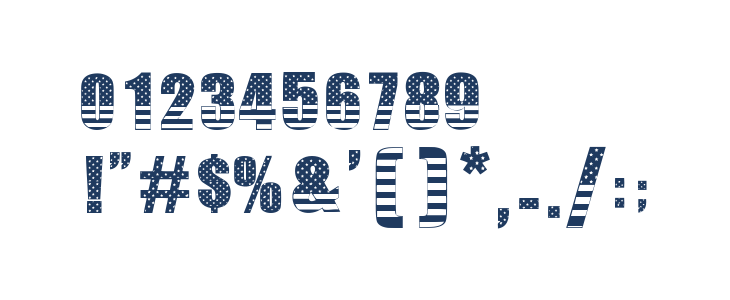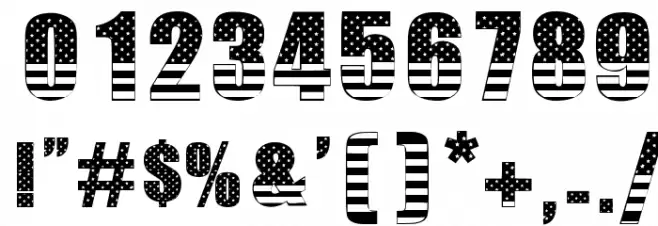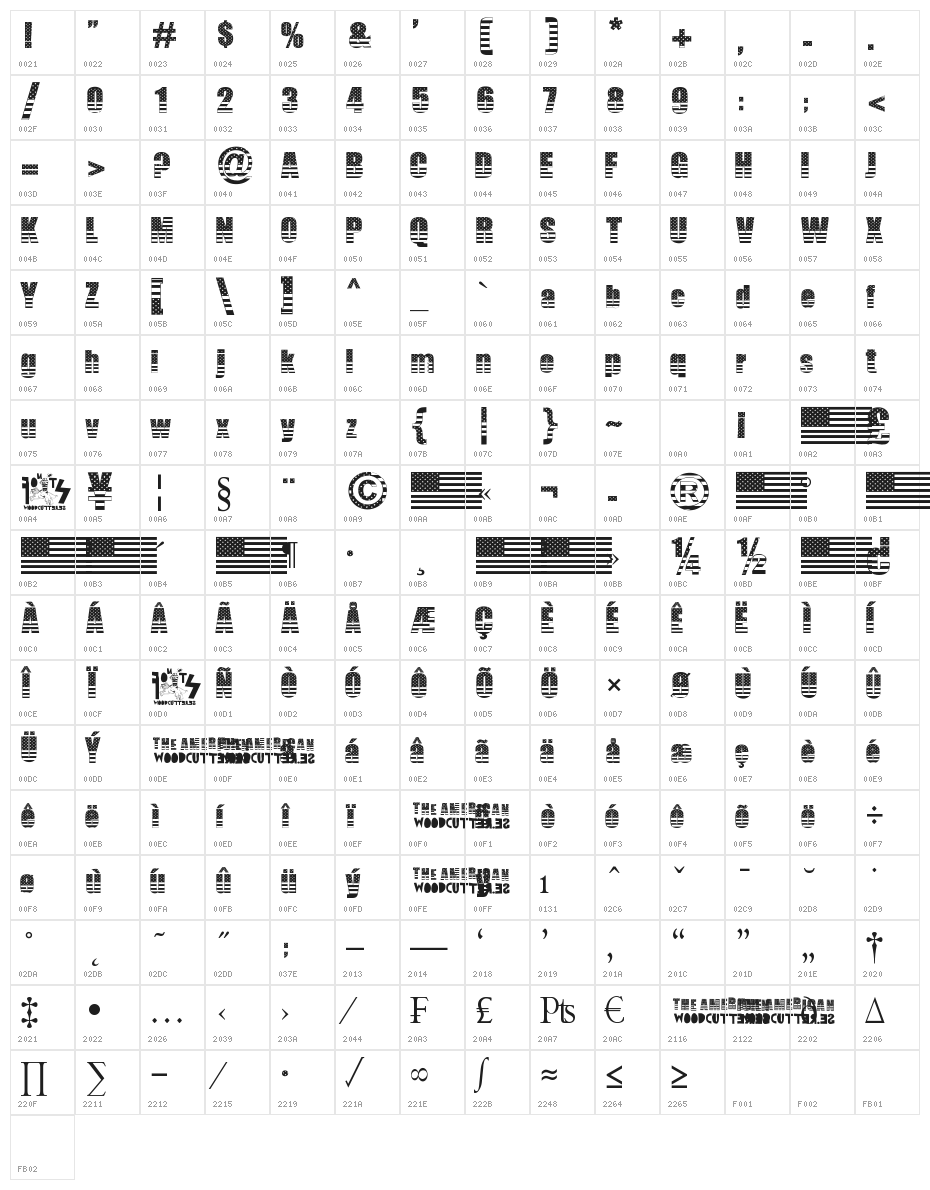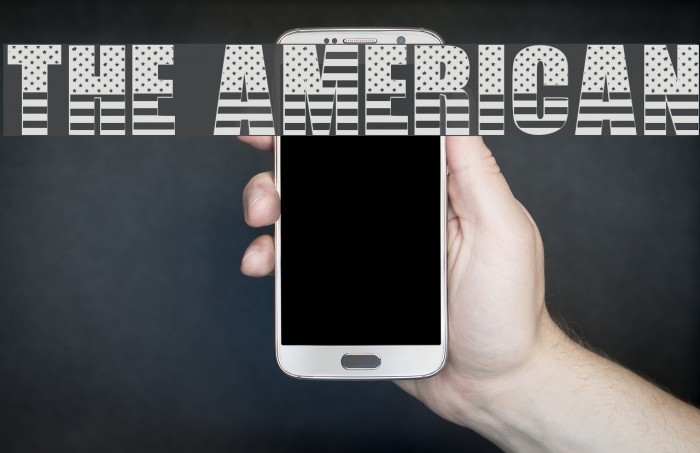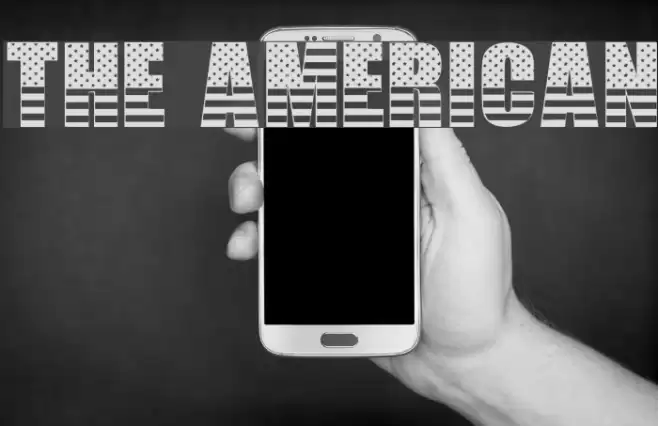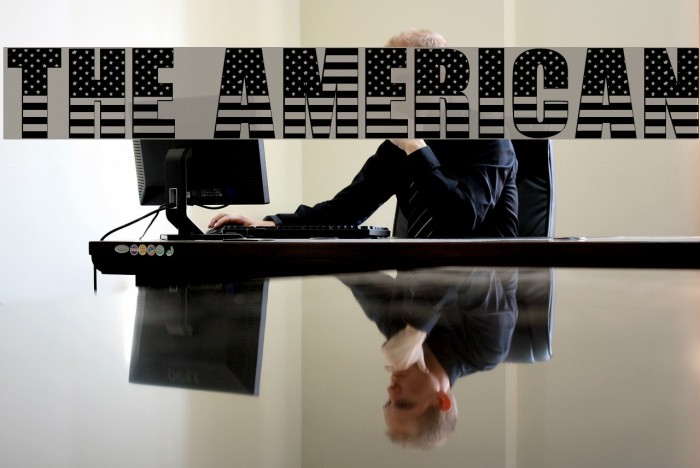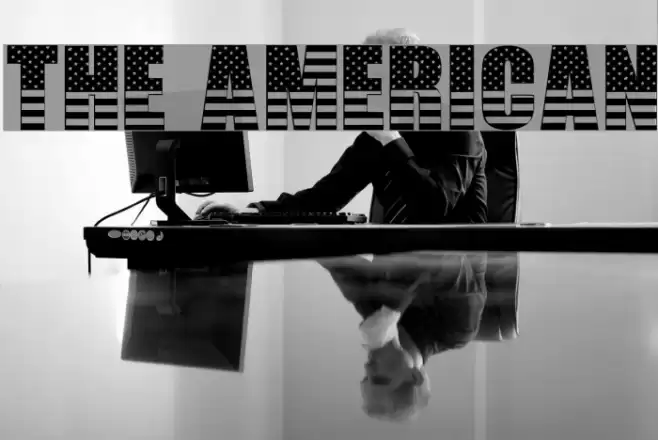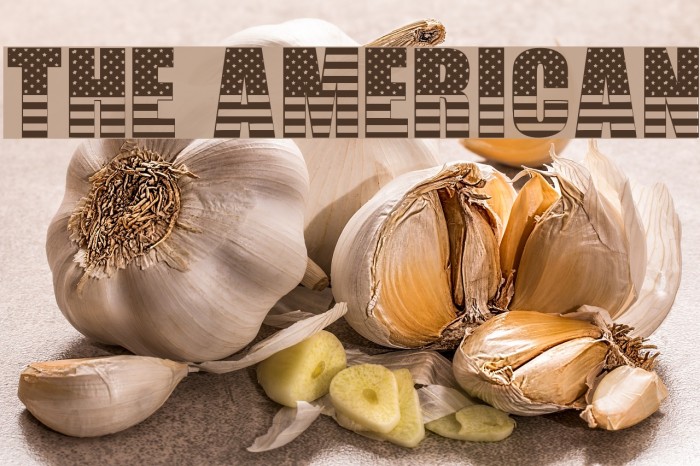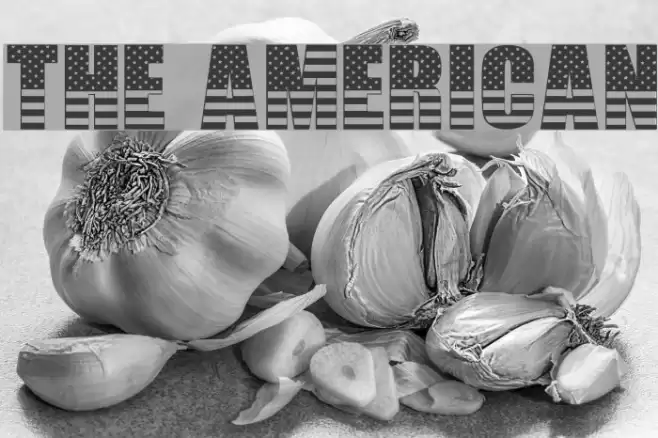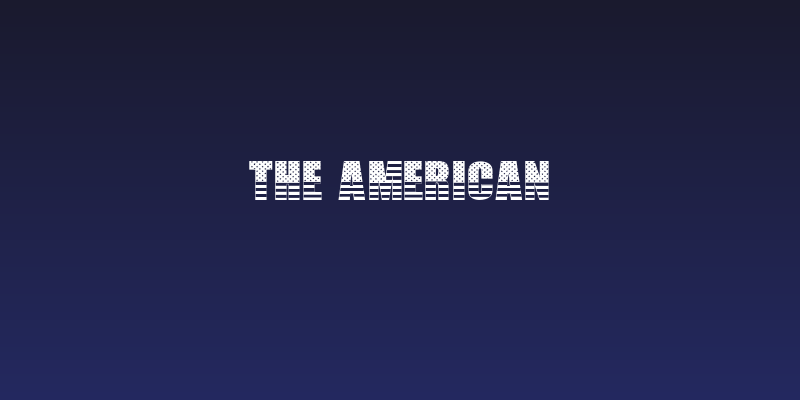
THE AMERICAN Font
THE AMERICAN Description
This font features a bold, decorative style with a unique pattern reminiscent of the American flag. Each character is filled with stars and stripes, creating a visually striking effect that captures attention. The uppercase and lowercase letters, as well as numbers and special characters, maintain this consistent theme, making it ideal for patriotic or themed designs. The font's boldness and decorative elements make it stand out, while the consistent pattern across all characters ensures a cohesive look.
| Proposed Projects | Ideal for patriotic posters, themed event invitations, branding for American-themed products, or any design requiring a bold, eye-catching typeface. |